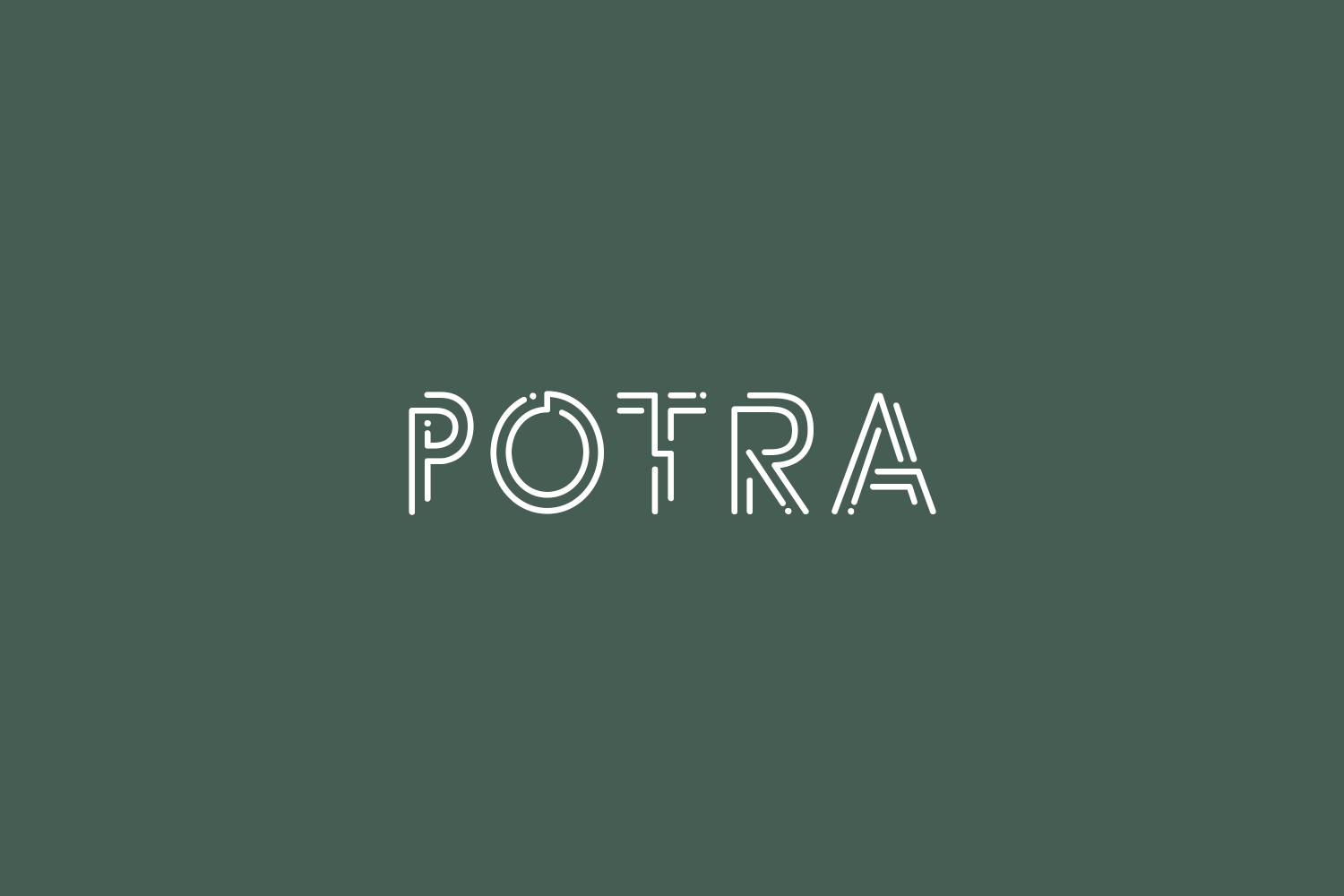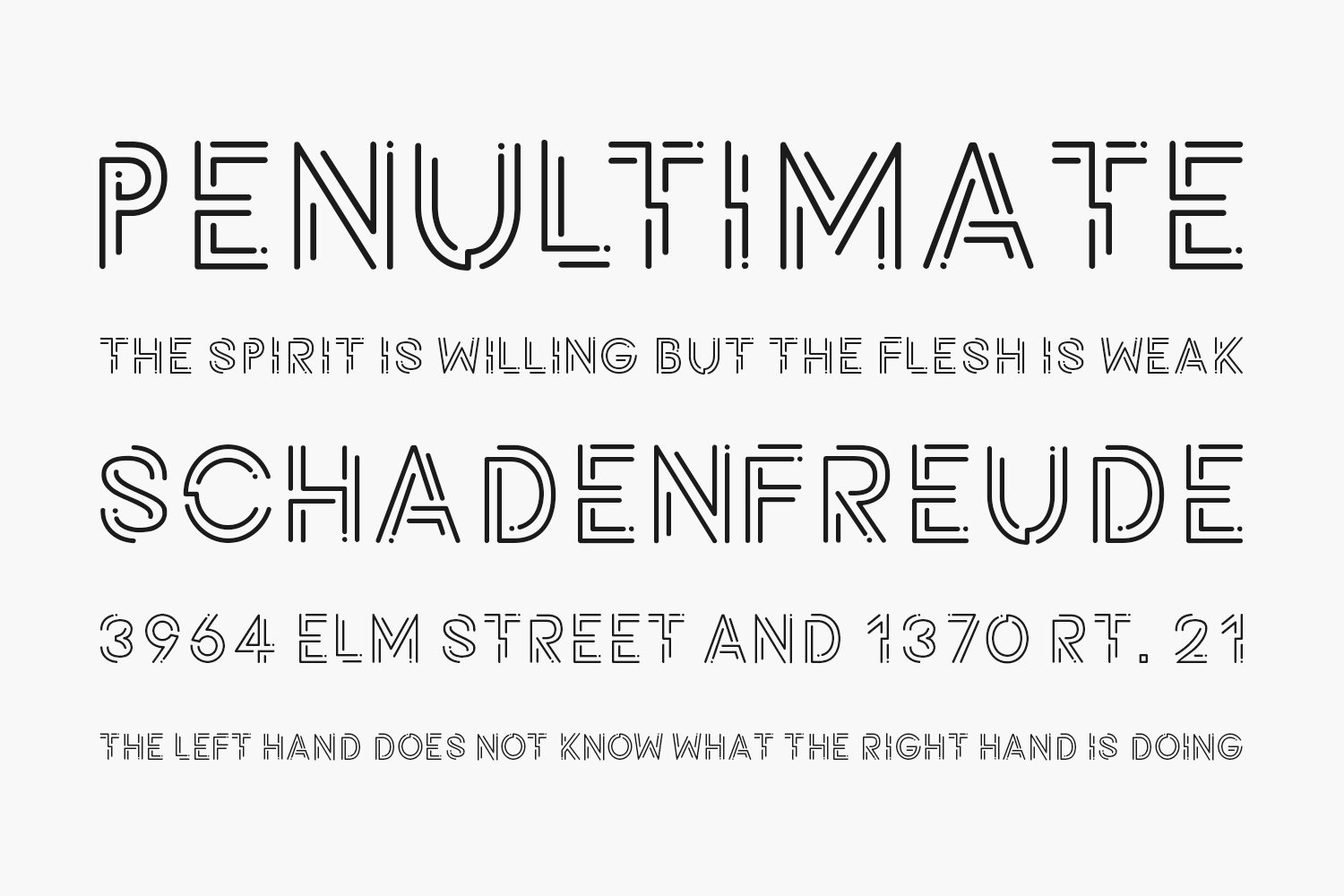
Potra Free Font is a futuristic display font with rounded lines designed by Alejo Bergmann. It contains all caps letters, numerals, and symbols. This font perfectly suites for a variety of display purposes, including logotypes, badges and labels, headlines and banners, prints and much more. Feel free to use this in any of your projects. Please note if you want to publish the font on your website, feel free but please reference me as the owner and link it back to my Behance project, thanks.
Designed by Alejo Bergmann